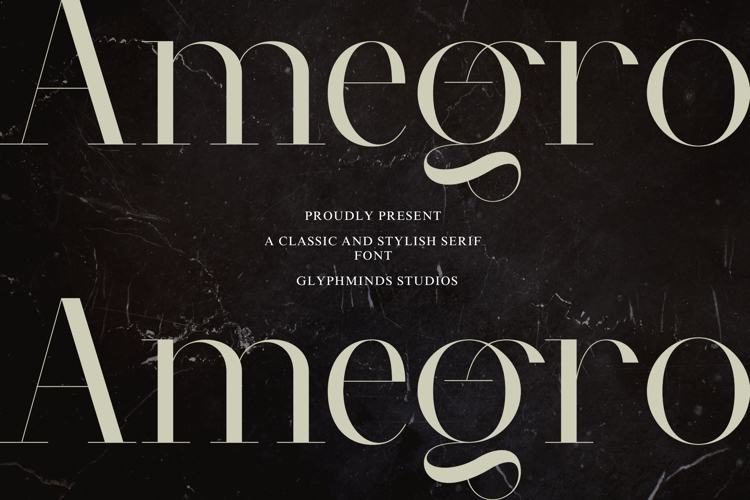
Amegro Font
About Amegro Font
Welcome to the world of Amegro, a classic serif font meticulously crafted to bring sophistication and style to your design projects. Inspired by the timeless charm of traditional typography, Amegro seamlessly blends classical elements with modern sensibilities, resulting in a font that exudes refined elegance and timeless appeal.